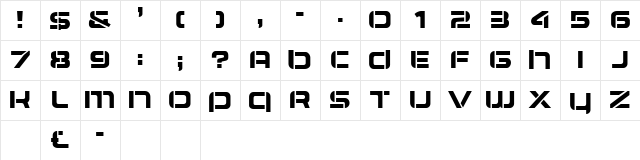
Airlock Regular
Design Context for Airlock
Airlock is a composed and adaptable typeface that performs quietly and consistently across a wide range of design contexts.